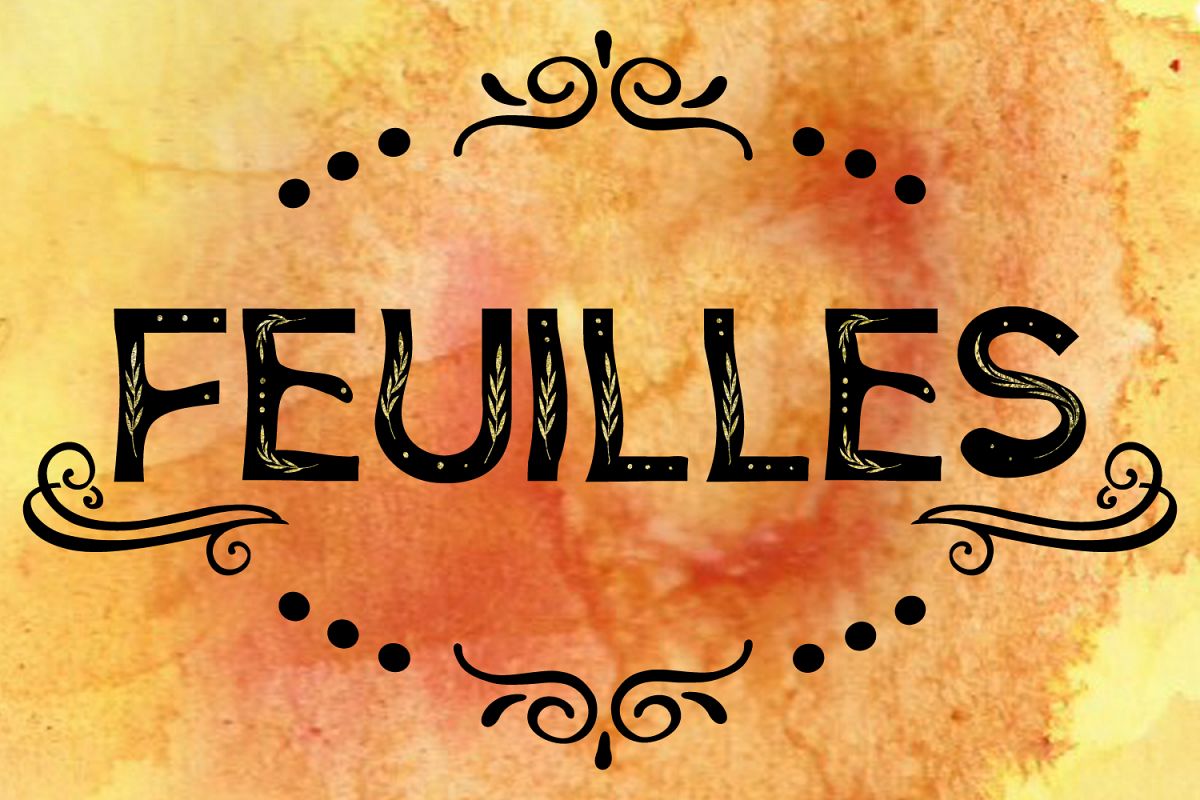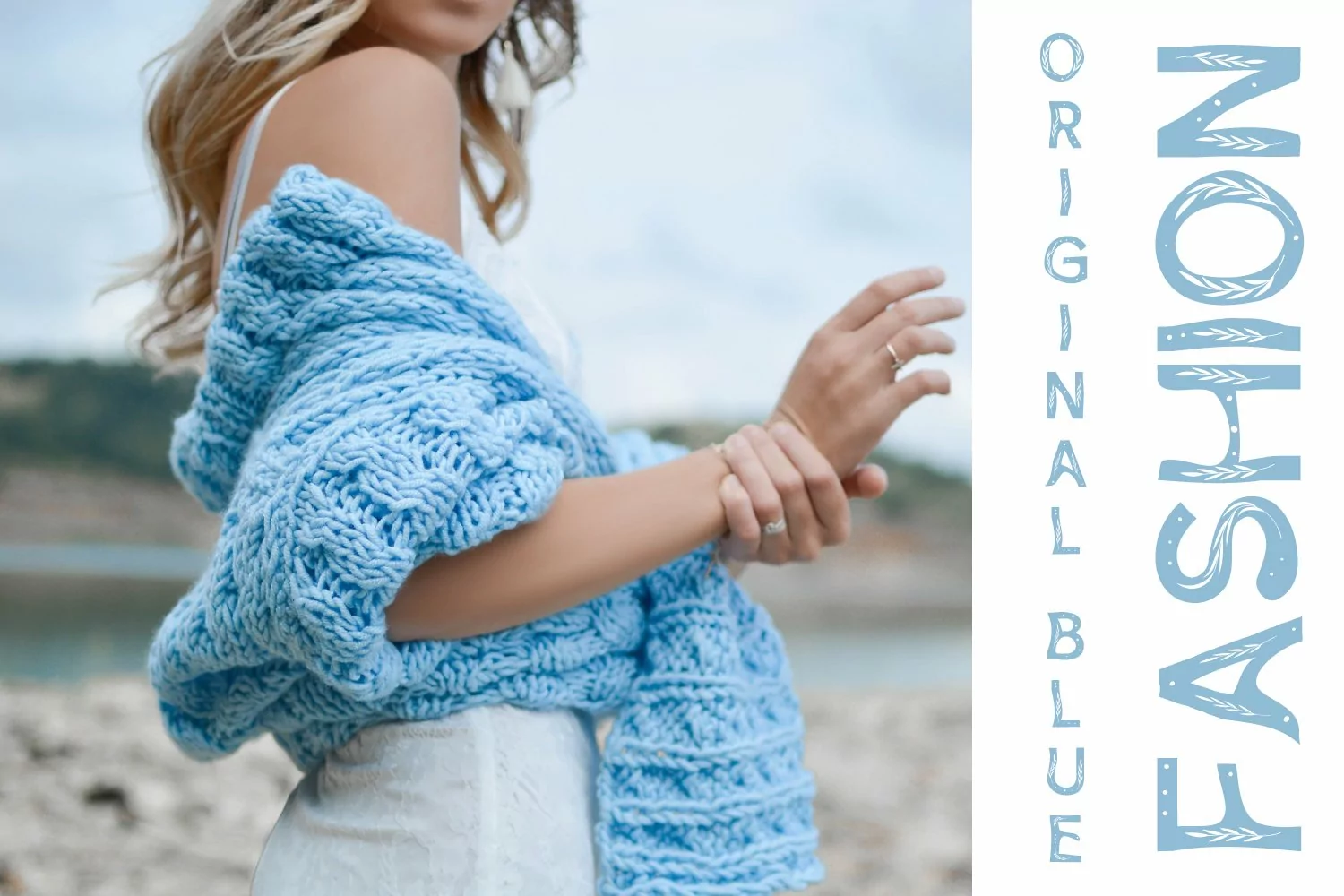
Font Feuilles is perfect for your joy projects such as baby's clothes, cool stuff, logo, invitation, crafts, decoration, cards and so on. You can create amazing projects or gifts with these cute font.